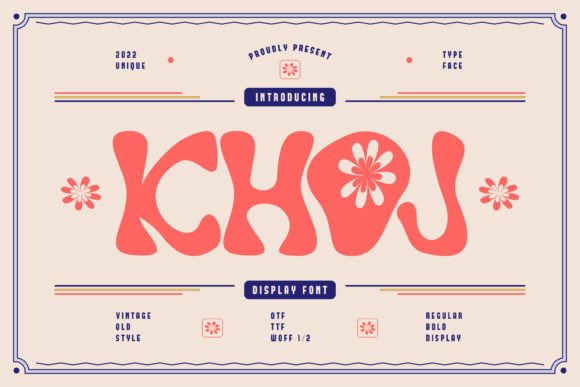
Step into the realm of nostalgia with Khoj Font, a groovy and whimsical display font created by inferno.type3, that transports you back to the era of flower power and bell-bottoms. With its enchanting curves and playful spirit, Khoj Font is a perfect fit for capturing the carefree essence of the old style. Unleash your creativity and embark on a journey of design, crafting projects that radiate joy, peace, and a touch of retro charm.
Immerse yourself in the mesmerizing world of Khoj Font, a display font that echoes the spirit of the past while embracing the vibrancy of the present. Its distinctive letterforms, reminiscent of groovy psychedelic posters and whimsical hippie art, evoke a sense of freedom and liberation. Whether you're designing posters, flyers, album covers, or any other creative endeavor, Khoj Font adds a touch of magic, transforming your words into captivating expressions of art.
Beyond its aesthetic appeal, Khoj Font is a versatile workhorse, effortlessly adapting to a wide range of design projects. Its carefully crafted characters exude a friendly and inviting personality, making it an ideal choice for branding, packaging, social media graphics, and website design. The font's inherent versatility allows you to effortlessly create designs that resonate with your audience, leaving a lasting impression that speaks volumes about your brand's identity.
Khoj Font is more than just a collection of letters; it's a gateway to a bygone era, a time when creativity flourished and imagination ran wild. Embrace the groovy spirit of Khoj Font and let your designs radiate with a touch of nostalgia and a dash of whimsy.